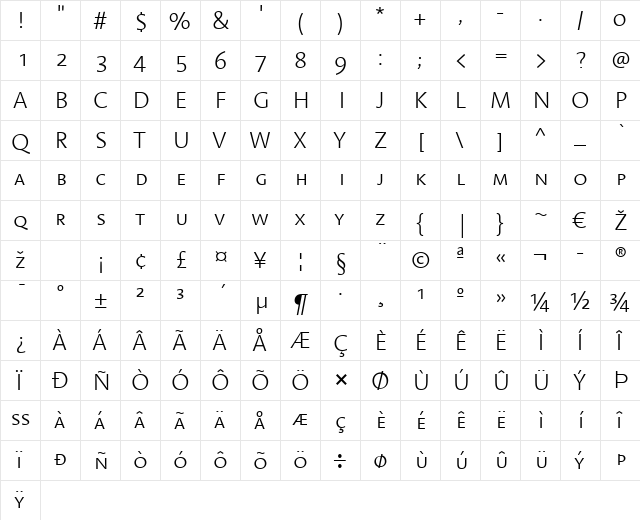
LTAromaSC Light Regular
| Designer | Tim Ahrens |
Design Context for LTAromaSC Light Typeface
LTAromaSC Light offers clean, dependable letterforms without strong stylistic allegiance, making it a practical choice for designers who need flexibility. Its slender proportions lend an understated elegance to any composition.